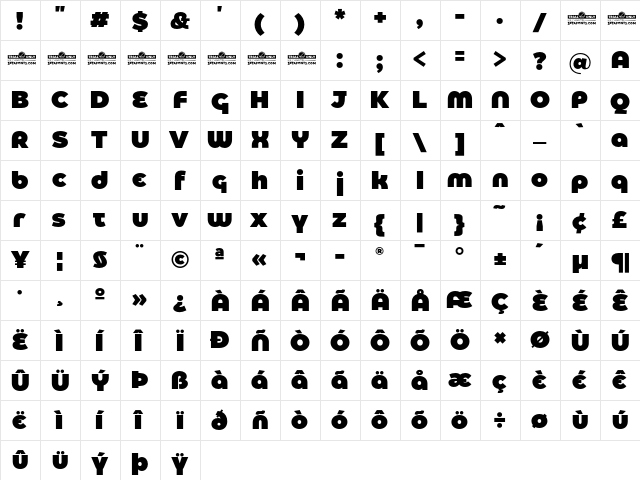
Eastman Alternate Trial Heavy
| Foundry | Zetafonts |
| Designer | Francesco Canovaro |
Design Context for Eastman Alternate Trial Typeface
Eastman Alternate Trial offers clean, dependable letterforms without strong stylistic allegiance, making it a practical choice for designers who need flexibility.